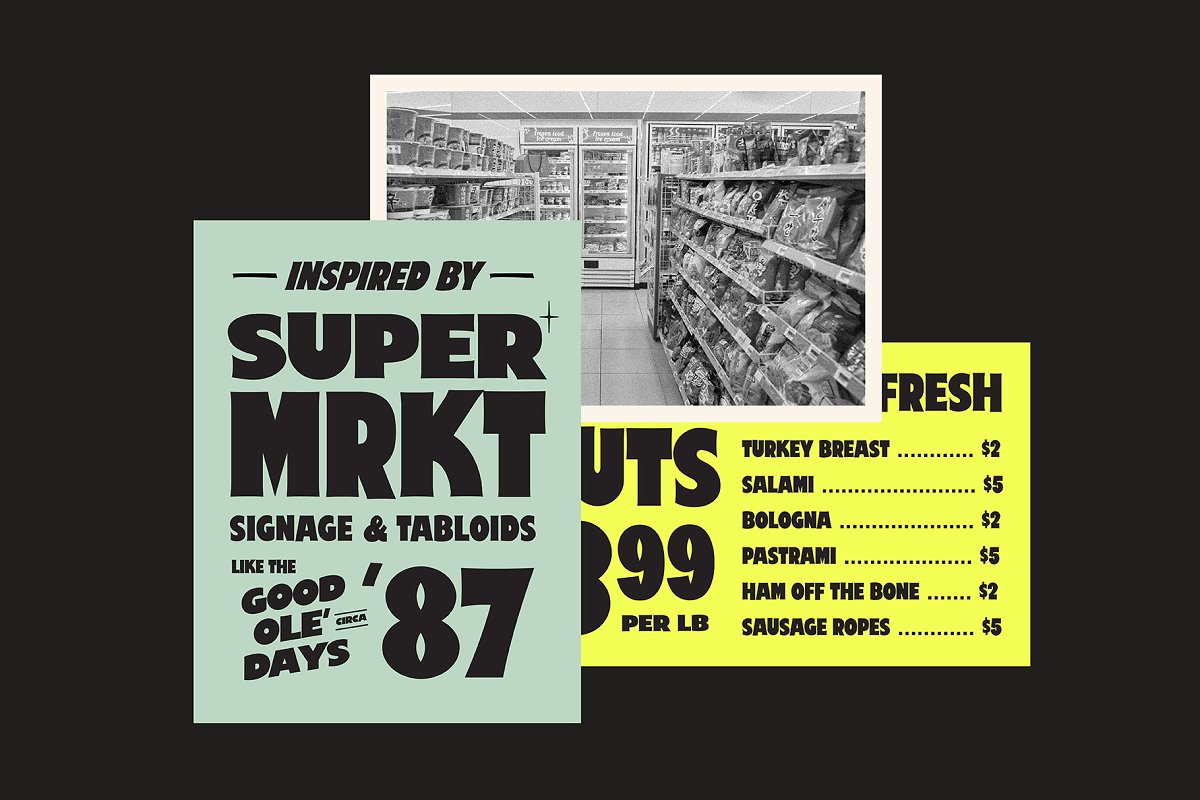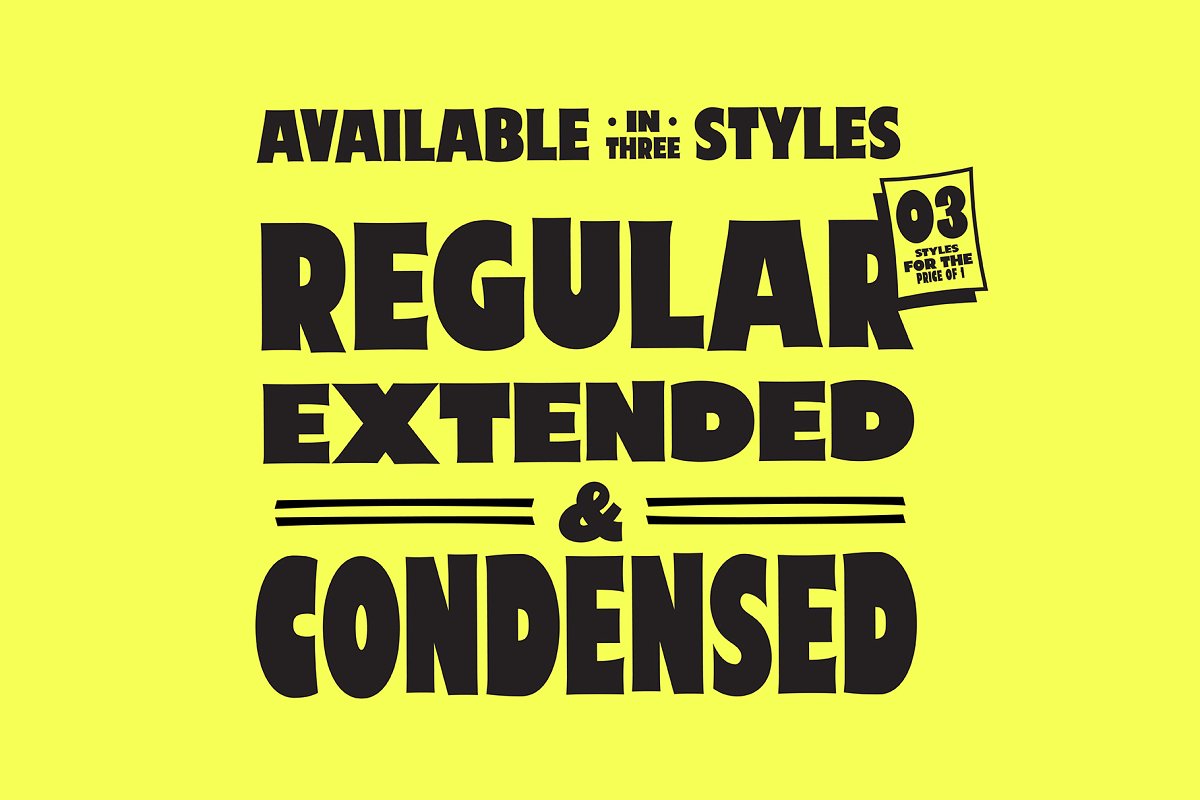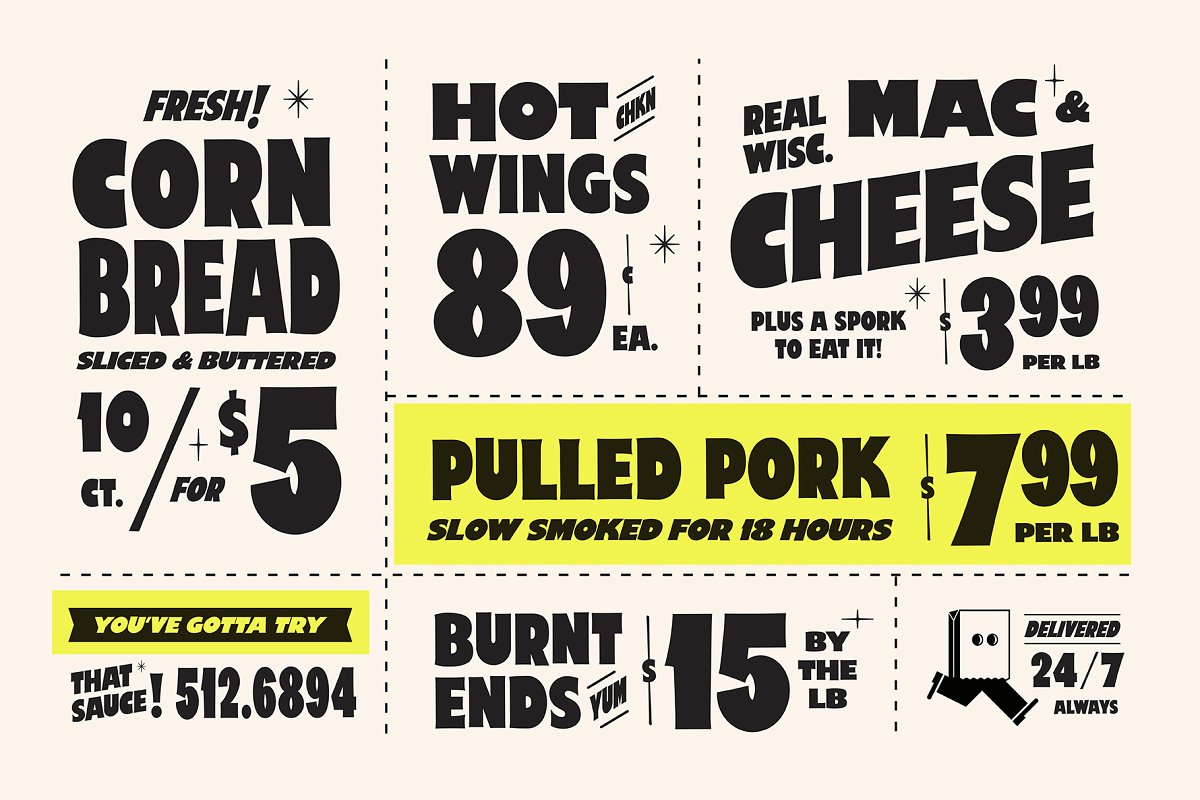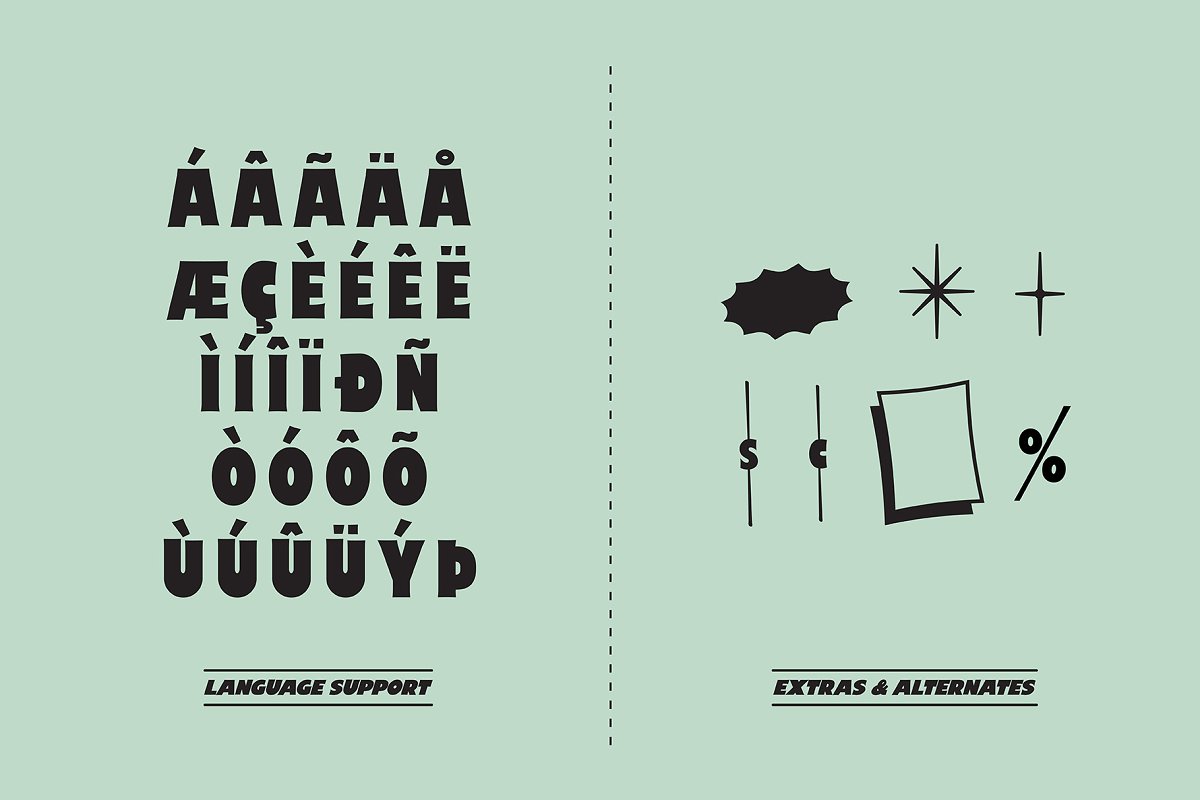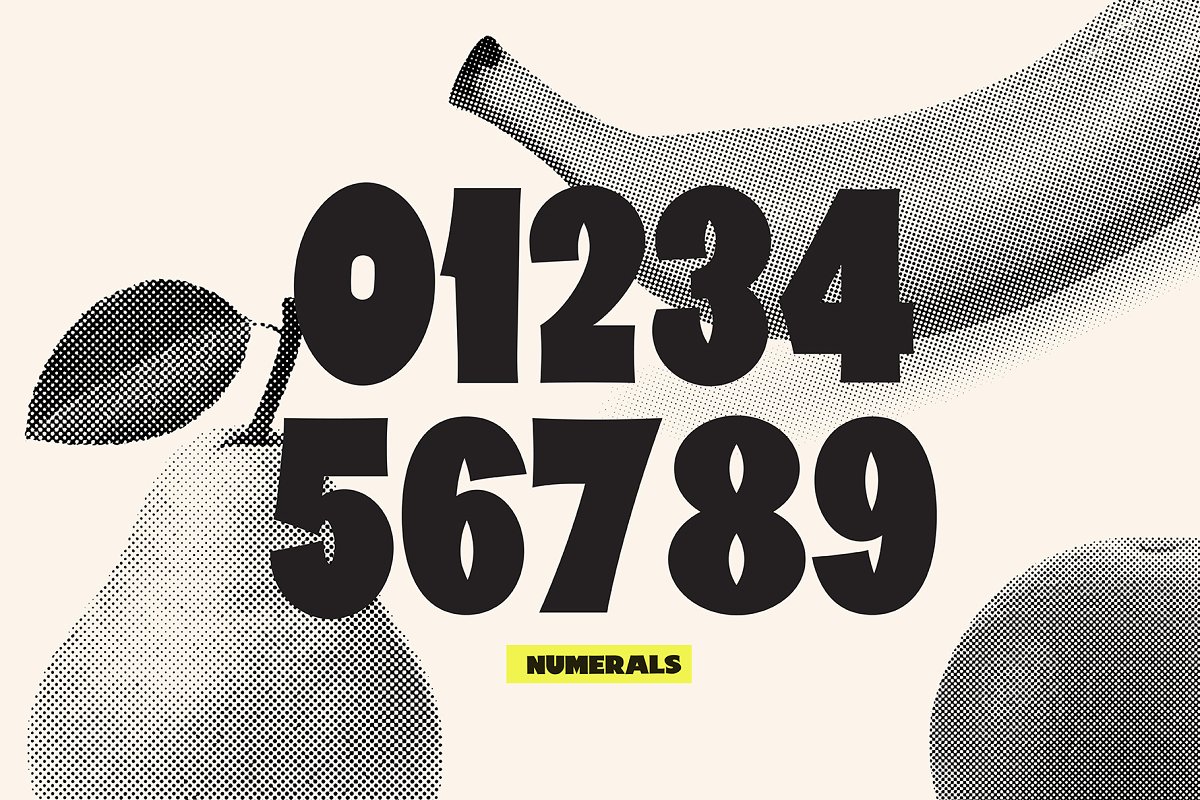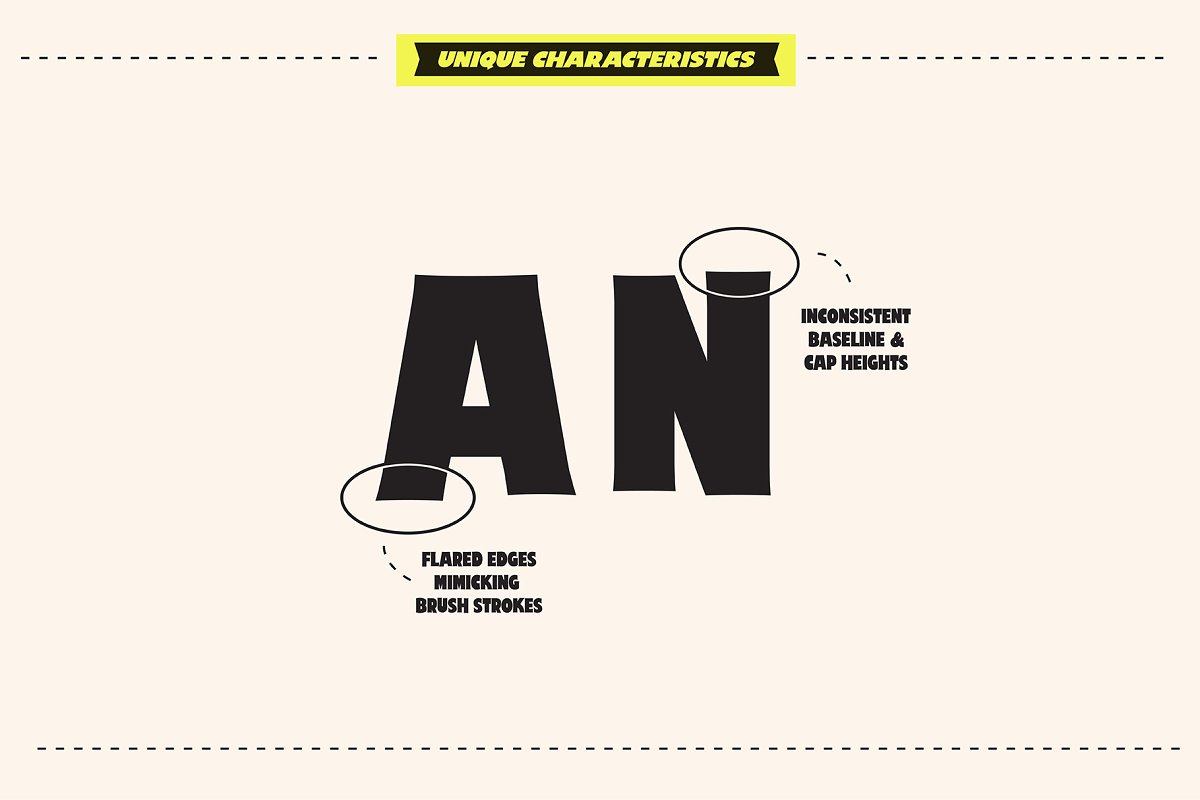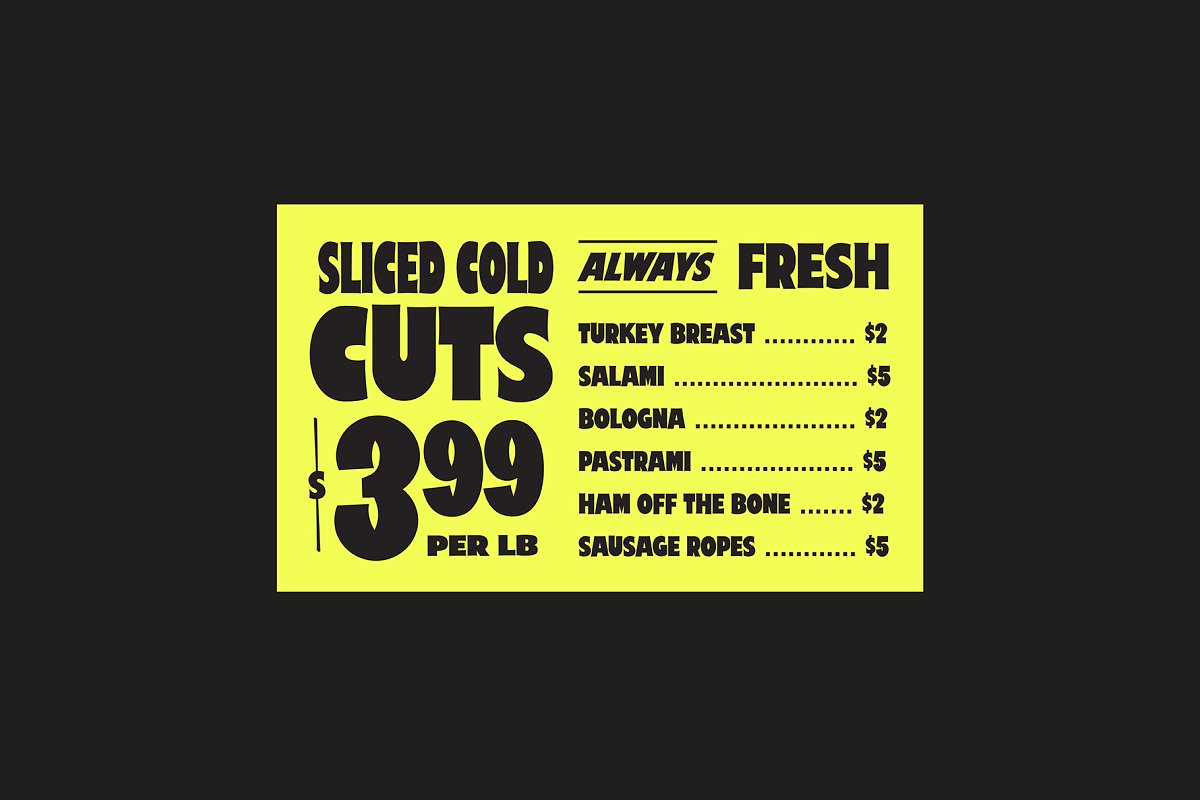
About the Price Check A Sign Painter Display Font
ABOUTPrice Check is a display typeface modeled after hand-painted characters commonly seen in supermarket signage in the mid to late 20th century, Price check is a heavy-handed sans serif with slightly flared edges to mimic the way a brush would shape each character, Sign painters mastered the art of typographic impact, but because of the hand drawn nature, there were always imperfections
Price check introduces these subtle imperfections in a few ways, First, specifically chosen characters (like the”N”) have inconsistent baseline and cap heights, This way, as you type, the characters seem to dance slightly on the page, Secondly, many of the characters have slightly arched vertical and horizontal strokes
This again mimics the way a brush stroke would interact with paper, Create bold typographic statements with 3 different font styles, Perfect for packaging and branding projects looking to create bold impact with a retro flare, INCLUDED3 different type stylesRegularExtendedCondensed4 Vector Extras – Commonly used shapes and elements from hand painted signs (Starbursts, 3D frames, etc
)3 Alternate characters – Because numerals and prices are used so frequently with this style, smaller, more stylized versions of the dollar, cent and percent signs are included, Diacritics & Umlauts – Multi-language support through glyphs common in Latin script characters (English, French, Spanish, German, Swedish, Norwegian, Danish